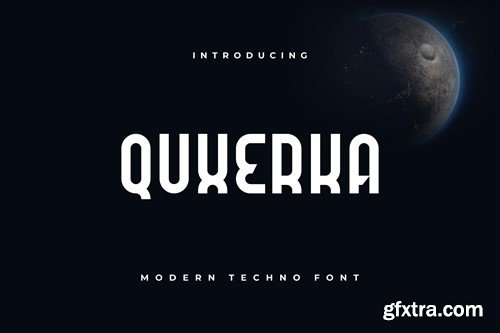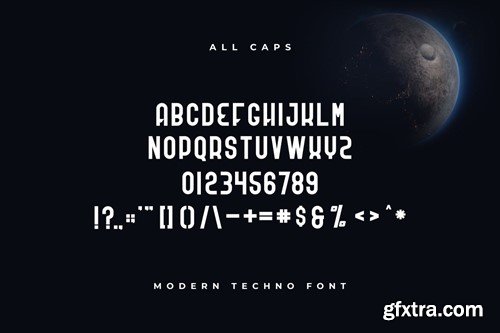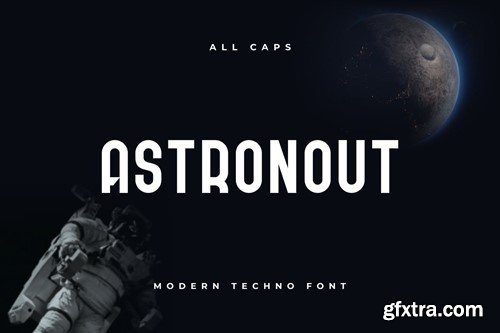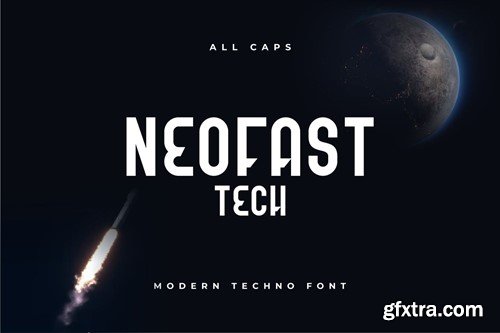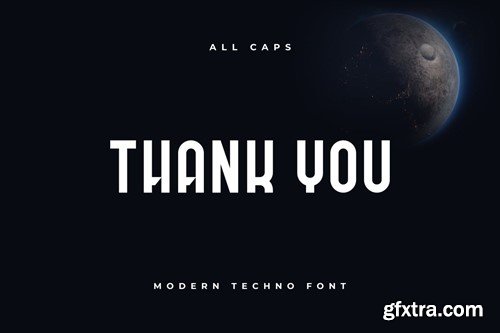
Quxerka Font
Introducing our new product Quxerka Font - Modern Font is a bold and authentic display font. The font is suitable for any branding project like logo, esport, and many more. outstanding in a wide range of contexts. availlable